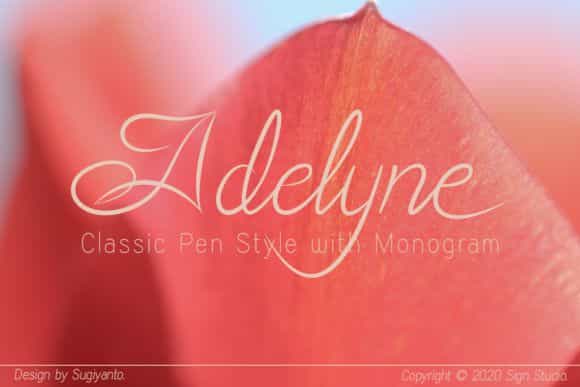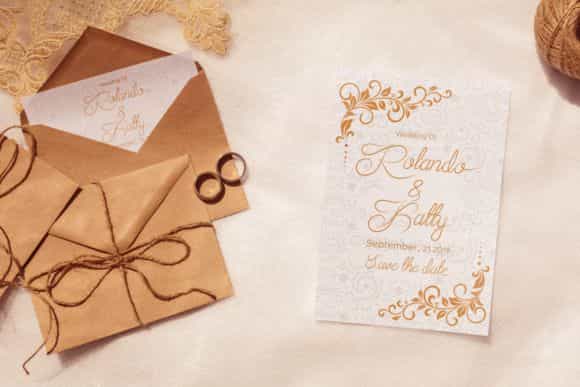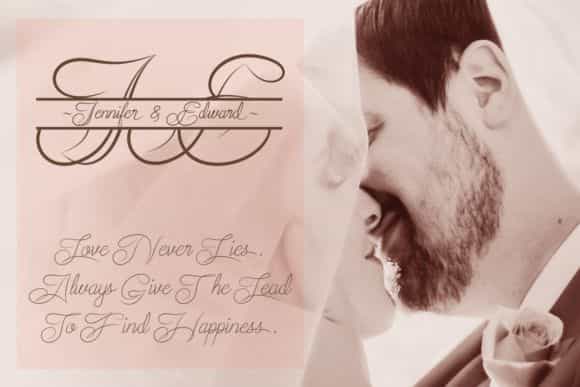
Introducing Adelyne Font. A fresh and contemporary calligraphy script font that shines on invitations greeting cards, branding materials, business cards, quotes, posters and more! With additional alternative characters and ligatures available through OpenType features like Stylistic Sets, Stylistic Alternates and Ligature options.